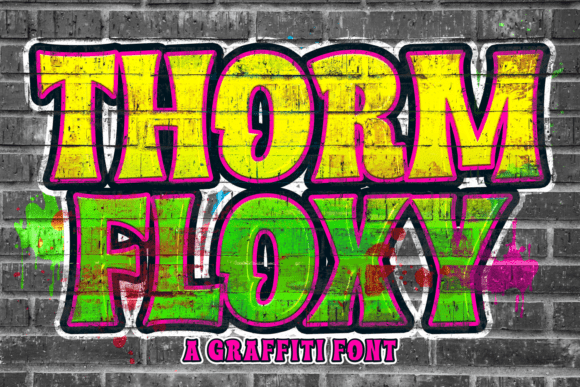
Thorm Floxy Font
Introducing Thorm Floxy, the restless embodiment of street culture, brought to life through a vibrant graffiti font. This highly distinctive font not only carries the urban pulse in its design but translates the raw energy of graffiti into typography. Its bold aesthetic and modern linear style portray an edgy and rebellious streak, offering an exclusive glimpse into urban aesthetics and streetwise style.
Thorm Floxy is your go-to option for an edgy design, whether it’s branding, album covers, apparel design, or urban-themed posters. This graffiti typeface leaps off the canvas with wild lines that reflect the spirit of street art. Its finesse lies in combining the elegance of display fonts with the grit of graffiti letters, giving you the best of both worlds.
Regardless if you’re a graphic designer, a typographer, or a branding specialist, Thorm Floxy furnishes a modern aesthetic for your urban branding tasks, setting your work apart. Offering cool fonts and a graffiti style, Thorm Floxy symbolises the ongoing evolution of street fonts, and street art fonts, narrating untold tales of the urban jungle. Embrace the pulsating city-inspired energy and introduce a dash of street art’s raw magic to your work with the Thorm Floxy Graffiti Font.